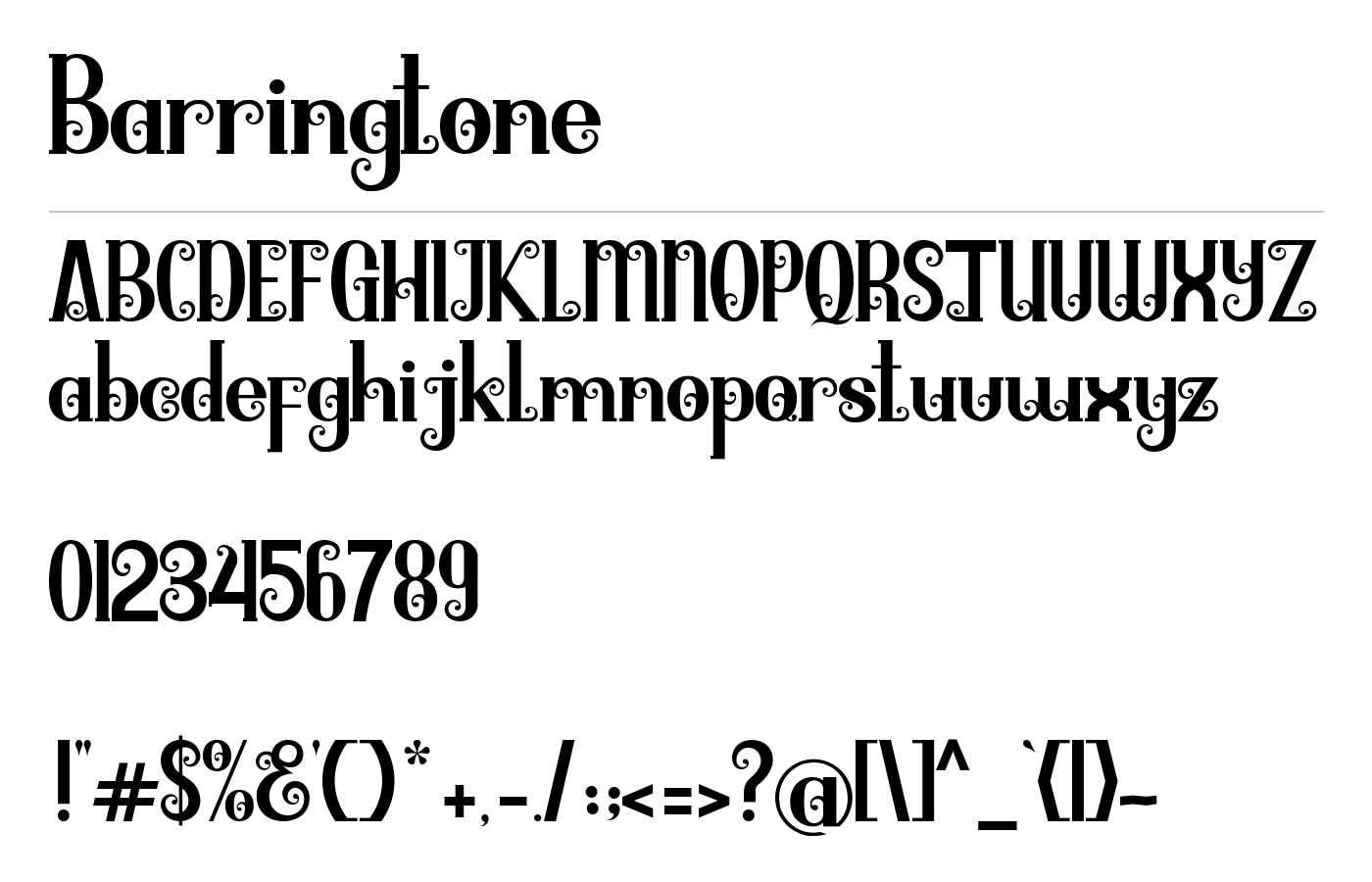
Barringtone is a bold, condensed serif font with a vintage flair, characterized by its distinctive high contrast strokes and whimsical curled terminals. Its unique ornamental details give it a playful yet sophisticated feel, making it ideal for eye-catching headlines, logos, and branding that seek to convey creativity and elegance. This font works especially well in fashion, editorial, and packaging contexts where a touch of artistic drama is desired.
Barringtone Font
About Barringtone Font
| Font family | Barringtone Font |
| Designer | Kapri Prianto (NeutroneLabs) |